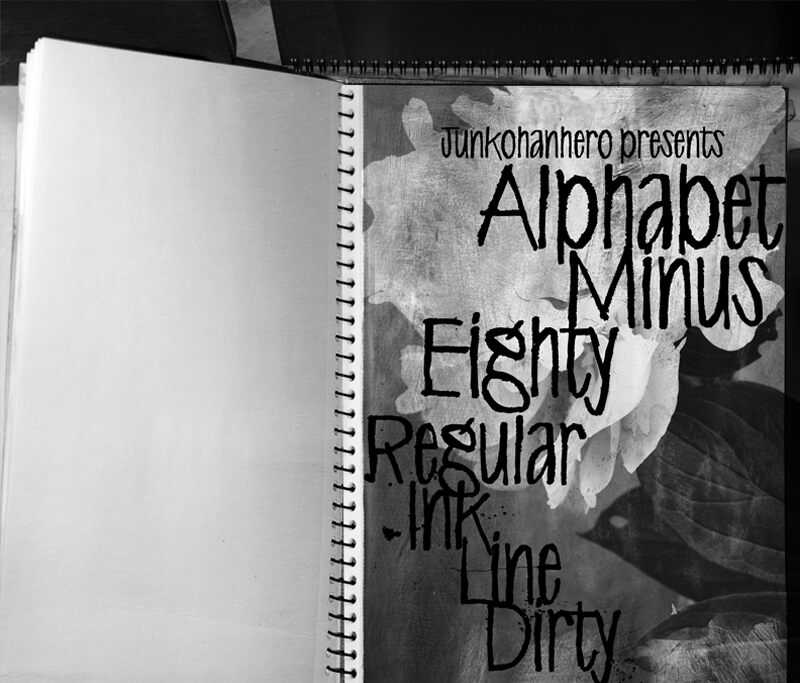
Alphabet Minus Eighty Line, designed by junkohanhero, is a script font with a trashy twist. With its semi-light weight and semi-condensed width, it's perfect for a variety of projects such as edgy fashion magazines, grungy music posters, or even tattoo designs. Its unique style adds personality and flair to any project that needs an extra edge. Let Alphabet Minus Eighty Line bring your vision to life with its unconventional charm.